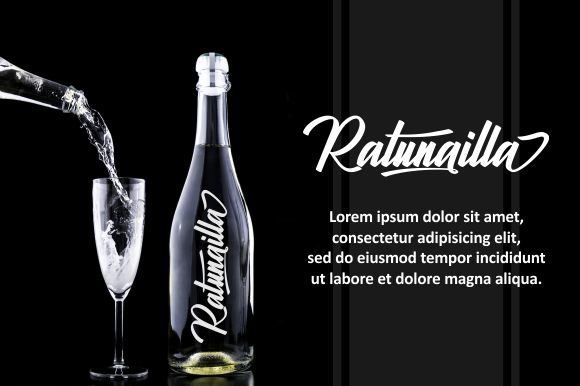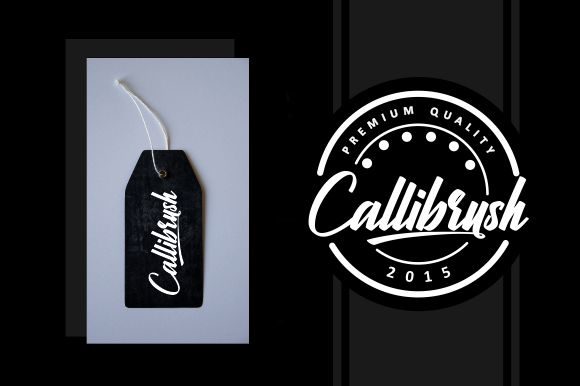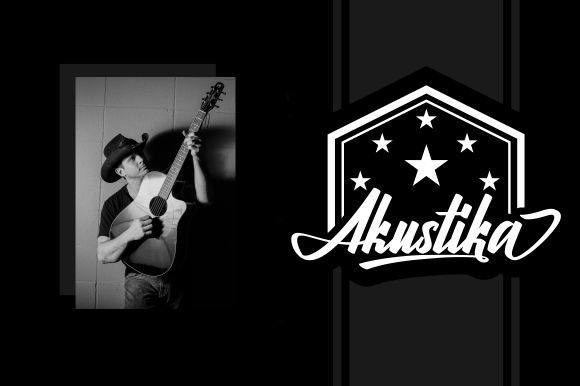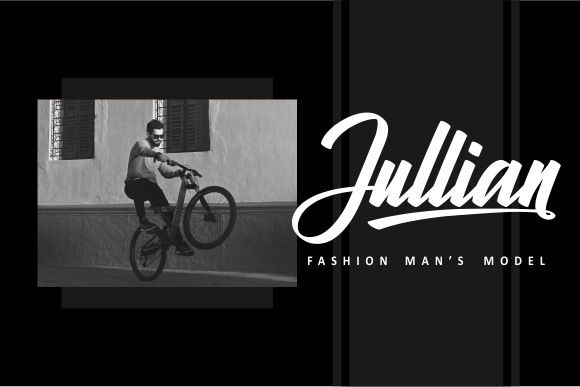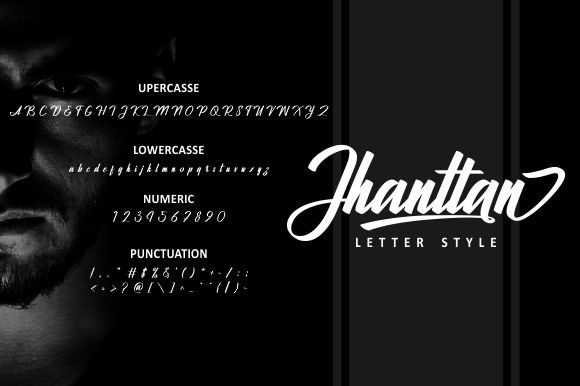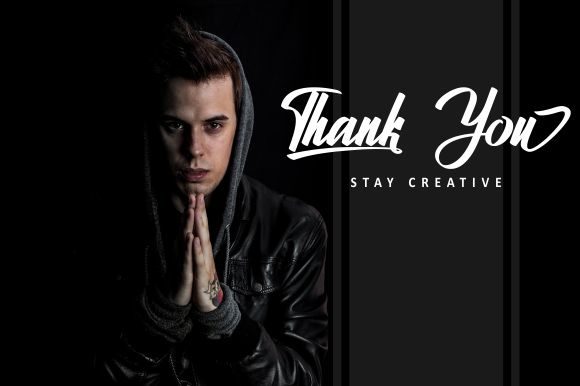
Introduction to Jhanttan Font
The Jhanttan is a striking calligraphy font.
It has bold letters which are perfect to give your design a cool and striking look .
Key Features of Jhanttan Font
Why Choose Jhanttan Font?